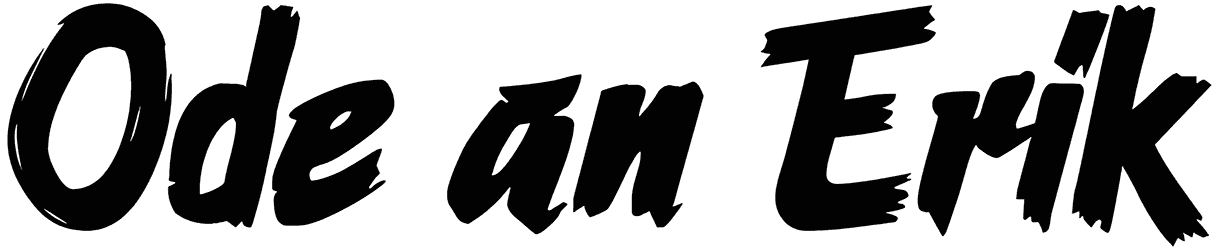
Ode an Erik AH Font
Let things get wild with the strong but playful letters of Ode and Erik AH, and you’ll see why you should keep coming back to this brush font.
For one thing, whatever you use it for, it’ll turn out to be both fun and aesthetic just as you like it. That’s all the reasons you need to add this paint font to your karate class flyers, online banners for special events like Black Friday, art studio business cards, and more.
This typeface is built on the title graphics of German TV Police Series “Der Kommissar” of the 1960 and 70s. Missing characters were extrapolated.